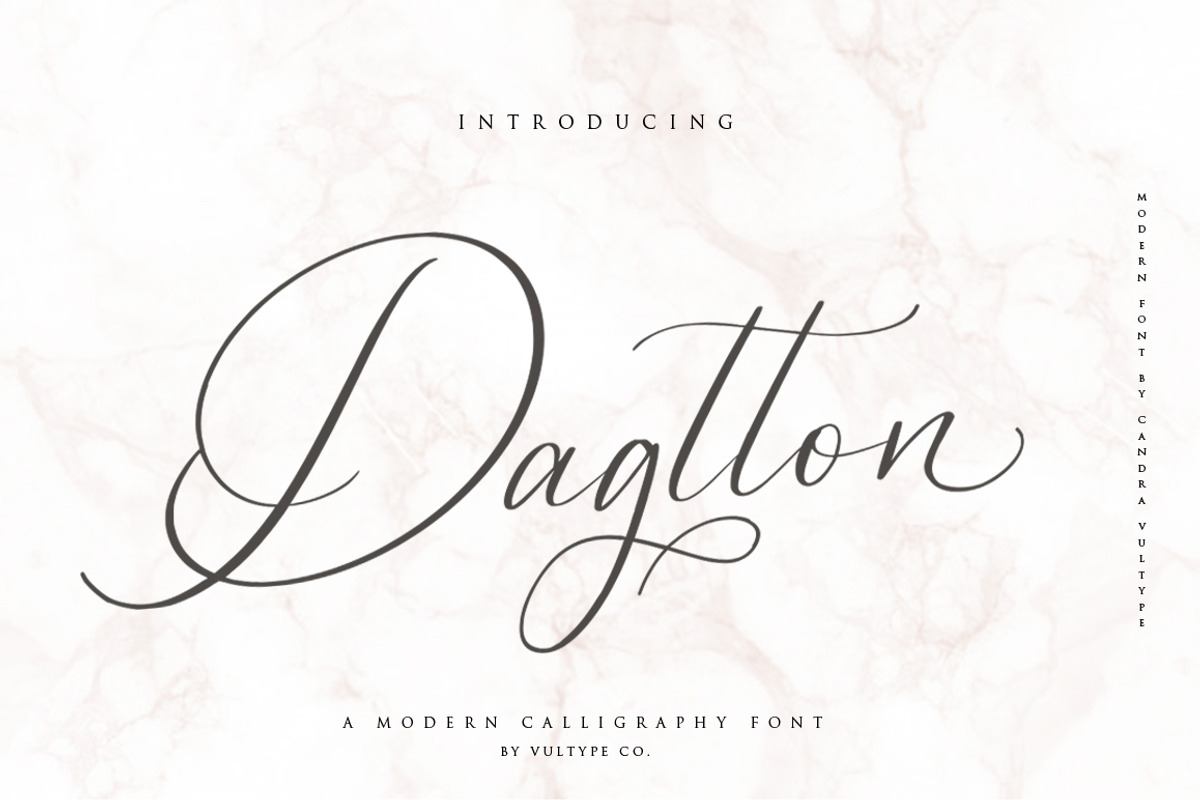
Dagtton Wedding Calligraphy Font is perfect for romantic wedding invitations, elegant bridal stationery, luxury event programs, anniversary celebrations, boutique branding, high-end beauty packaging, sophisticated greeting cards, and premium lifestyle marketing materials.
What makes Dagtton Wedding Calligraphy Font so exciting is its breathtaking combination of classical elegance and contemporary sophistication that transforms ordinary text into extraordinary artistic expressions. This masterful script typeface features flowing letterforms with intricate flourishes and delicate connecting strokes that embody the timeless beauty of traditional hand calligraphy. The font's luxurious appearance and romantic character make it essential for projects requiring the highest level of elegance and emotional impact.
The Dagtton Wedding Calligraphy Font family includes multiple stylistic variations, ornamental swashes, decorative ligatures, and alternative character options that provide designers with comprehensive tools for creating personalized calligraphic masterpieces.
Dagtton Wedding Calligraphy Font Free Download offers designers an exceptional opportunity to incorporate museum-quality calligraphy into their most important creative projects. This prestigious typeface excels in applications where romance and luxury converge, making it ideal for wedding industry professionals, high-end event planners, luxury hospitality brands, and premium gift companies. The font's wedding-focused design makes it particularly valuable for bridal boutiques, engagement photographers, and celebration venue branding.
The expertly balanced letterforms of Dagtton Wedding Calligraphy Font demonstrate unparalleled attention to calligraphic tradition while ensuring modern usability across digital and print formats. Each character reflects centuries of calligraphic heritage, creating text that appears authentically hand-written by master calligraphers. This dedication to artistic excellence makes the font suitable for the most discerning clients and prestigious occasions.
For celebration design and luxury branding, Dagtton Wedding Calligraphy Font represents the pinnacle of romantic typography that creates unforgettable impressions through superior aesthetic quality. The font's distinguished character elevates any design while communicating sophistication and attention to detail across all applications where exceptional calligraphy enhances memorable experiences.